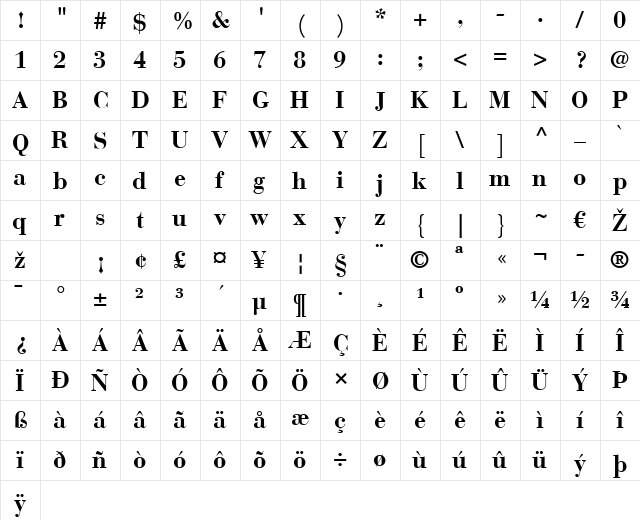
BauerBodoni LT Bold Font Preview
BauerBodoni LT Bold
Design Context for BauerBodoni LT Typeface
BauerBodoni LT takes a measured approach to typography — its balanced proportions and neutral character make it a reliable workhorse for both digital and print work. Its bold stroke weight gives it real presence on the page.